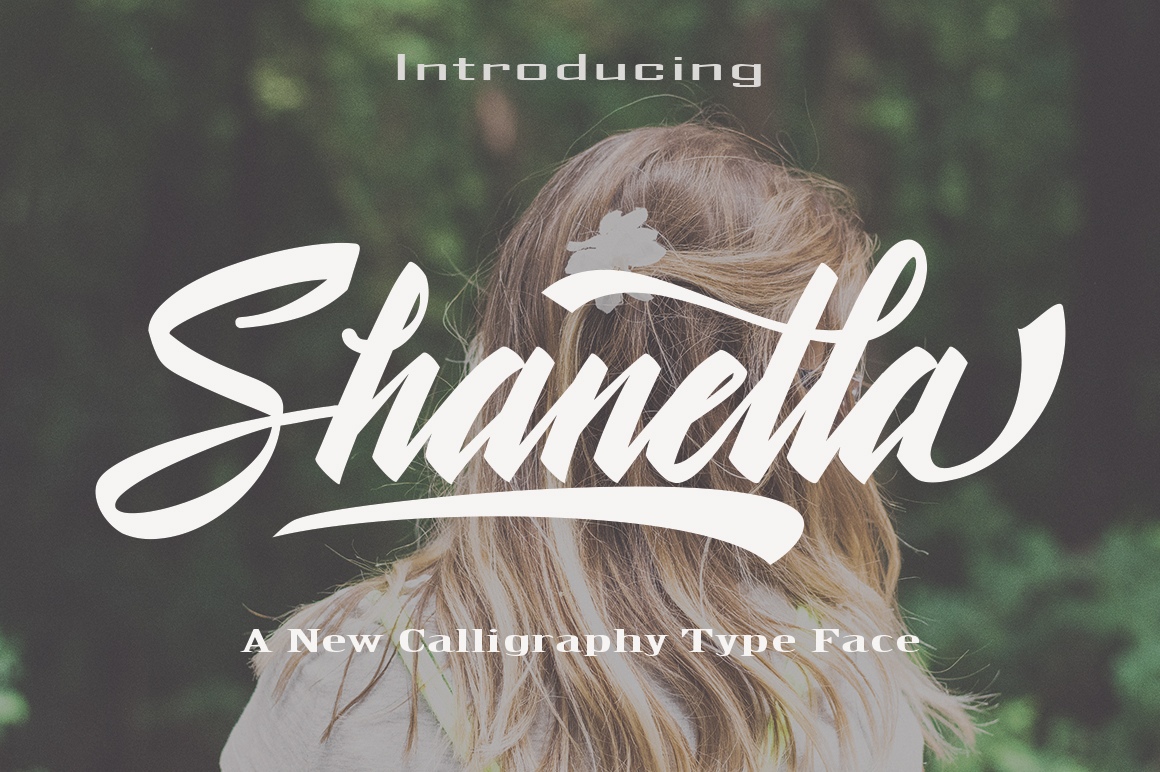
Shanella Font
Shanella Font is perfect for feminine branding projects, beauty product packaging, fashion magazine layouts, romantic wedding invitations, boutique store signage, lifestyle blog headers, elegant greeting cards, and sophisticated social media graphics.
This exciting Shanella Font enchants viewers with its graceful curves and sophisticated femininity that embodies elegance, charm, and contemporary style. The font's refined character and delicate beauty make it an exceptional choice for projects requiring grace, sophistication, and feminine appeal that resonates with style-conscious audiences who appreciate refined aesthetic sensibilities.
The Shanella Font family includes multiple elegant variations such as Regular, Bold, Light, Italic, Decorative, and Ornate versions, providing designers with comprehensive options for creating sophisticated and visually appealing feminine brand communications and elegant typographic compositions.
The graceful character of Shanella Font makes it particularly valuable for beauty brands, fashion companies, wellness services, lifestyle businesses, and female entrepreneurs who need to establish elegant brand presence while connecting with discerning female audiences. Its sophisticated styling appeals to women who appreciate quality, beauty, and refined aesthetic experiences.
Design professionals choose Shanella Font for its exceptional ability to create emotional connections and sophisticated brand experiences across various applications. The font maintains its elegant charm from intimate personal stationery to large retail displays, ensuring consistent feminine branding and refined visual communication.
The versatile applications of Shanella Font extend from personal lifestyle projects to comprehensive luxury brand systems, maintaining its graceful character across different scales and contexts. This adaptability makes it valuable for organizations requiring consistent elegant expression across multiple platforms and feminine market segments.
Contemporary feminine brands utilize Shanella Font to establish distinctive identities that communicate style, sophistication, and empowerment in competitive lifestyle markets. The typeface's elegant appeal helps brands connect with style-conscious consumers while projecting values of beauty, quality, and feminine strength that resonate with modern women's aspirations and lifestyle choices.